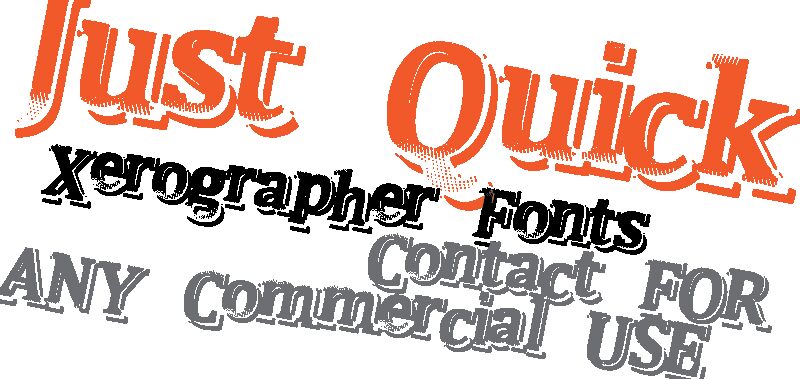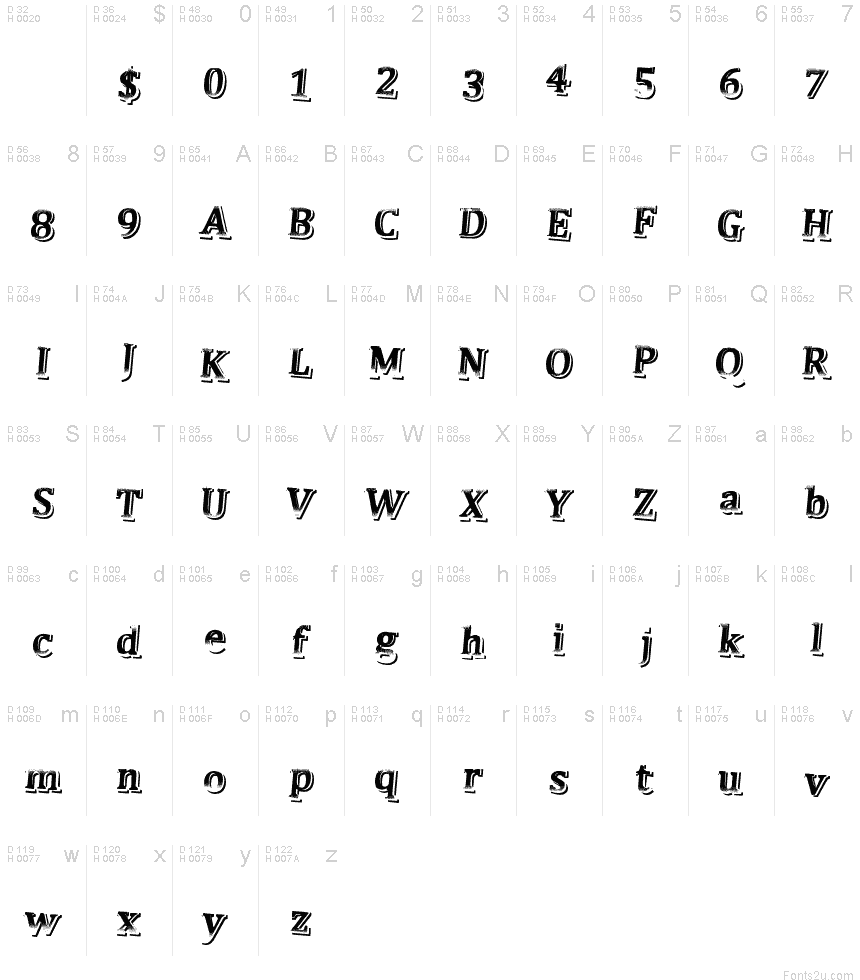
Just Quick from Xerographer Fonts is a free eroded display font with broad slab serifs and sharply changing stroke widths. Its letters lean and jostle slightly, overlaid with offset black echoes and coarse dotted wear that recalls an imperfectly printed showbill.
Independent music labels and vintage-minded clothing brands could use it for logos, merchandise, posters, and album packaging, since the restless printing effect feels closely tied to ink and paper. It is most convincing on a poster, where the skewed forms and repeated shadows become part of the event's graphic image.